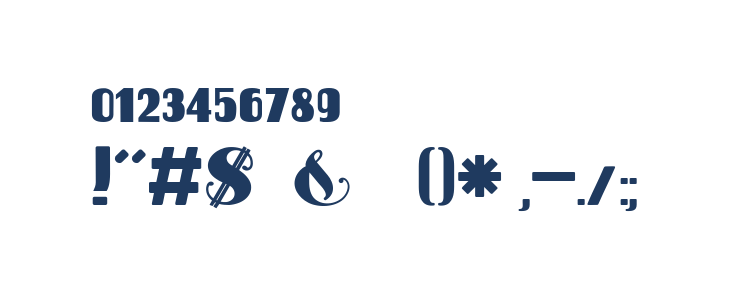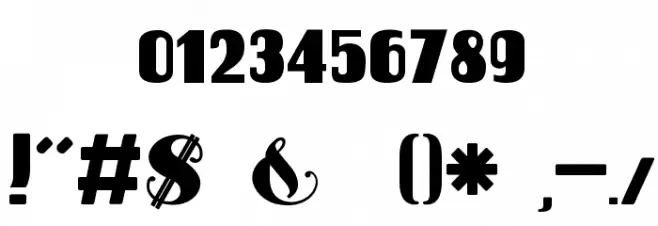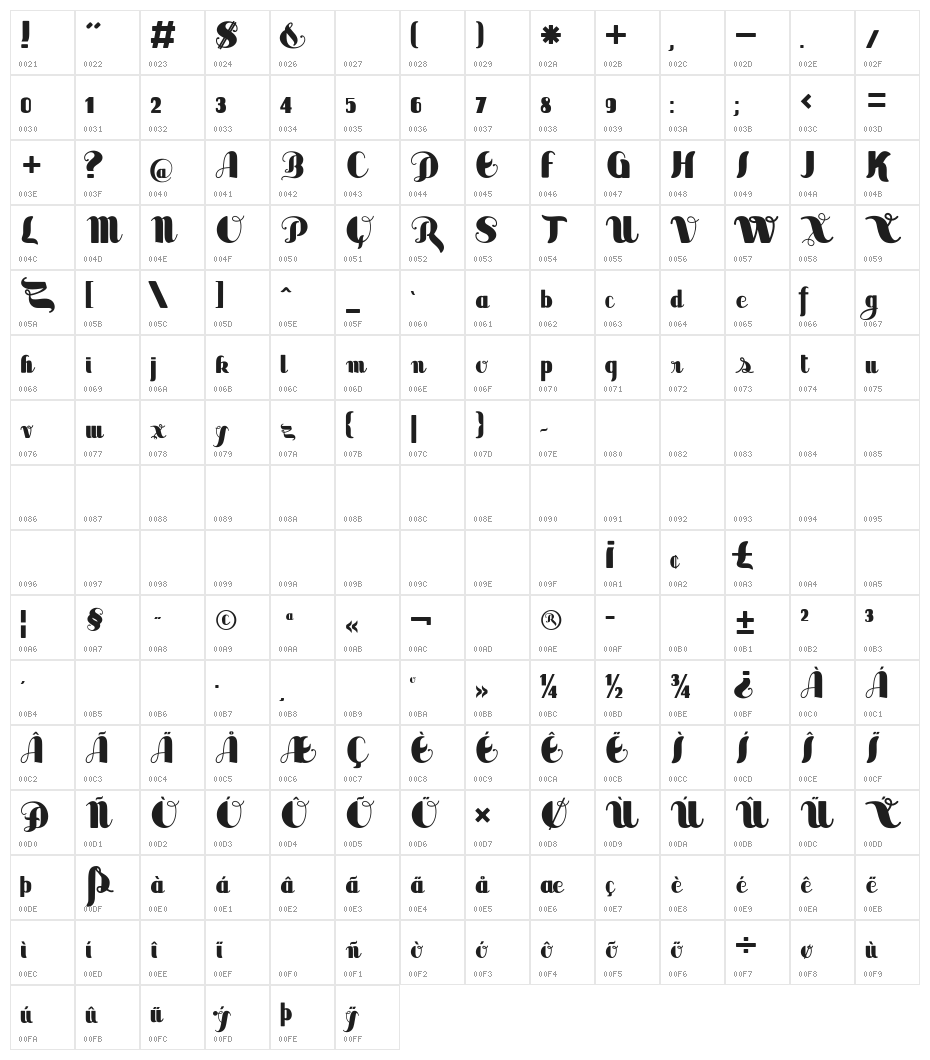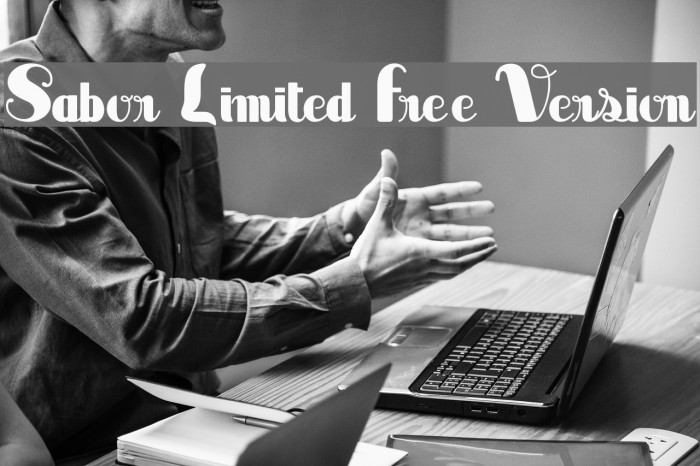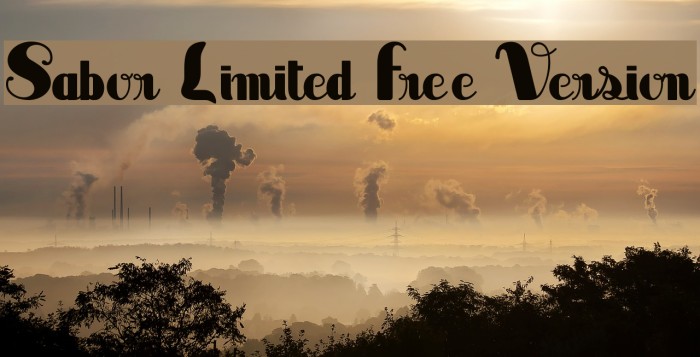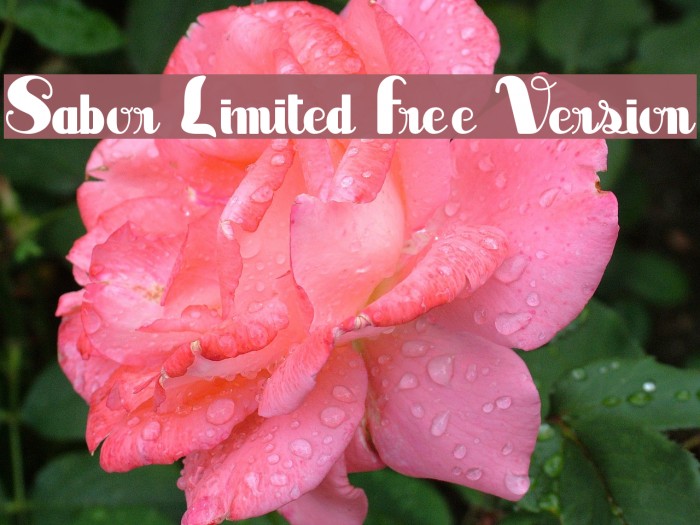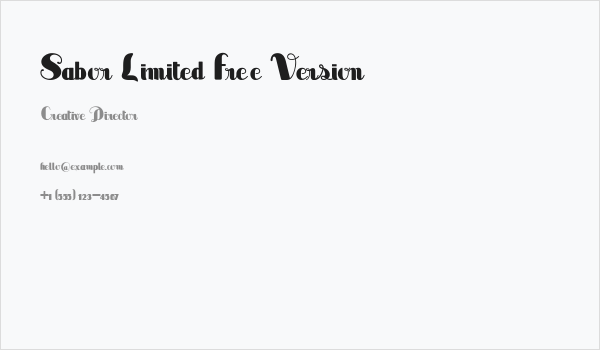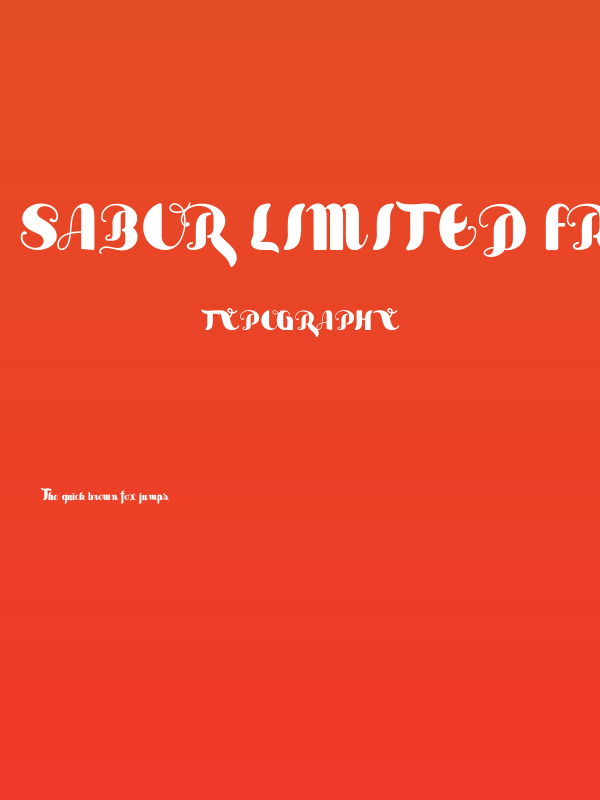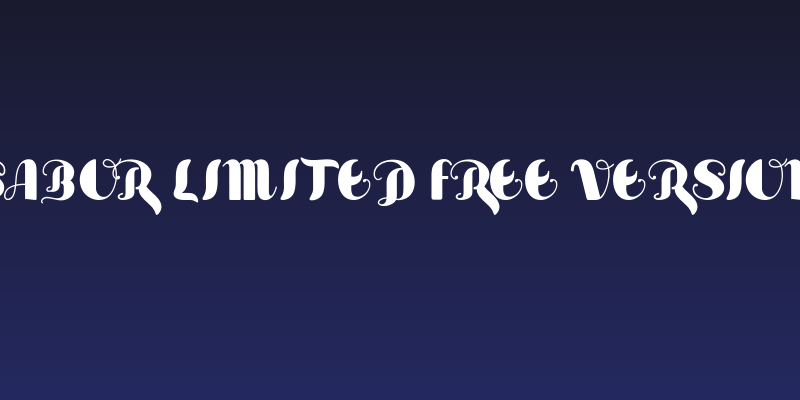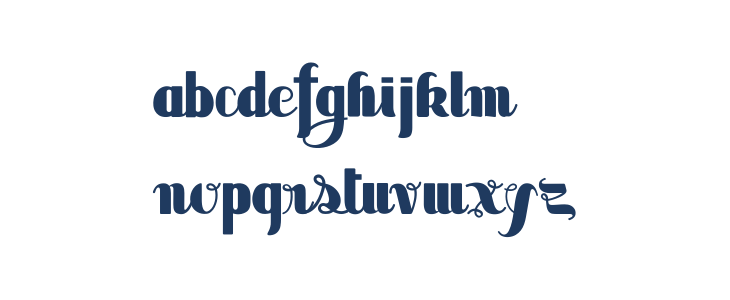
Sabor Limited Free Version Font
Sabor Limited Free Version Description
This font features a unique blend of decorative and bold elements, creating a striking visual impact. The uppercase letters are characterized by their thick, bold strokes and intricate flourishes, giving them a dramatic and artistic flair. The lowercase letters maintain a similar style, with some characters incorporating elegant swashes that enhance their decorative appeal. The numerals are bold and consistent, matching the overall weight of the alphabet. Special characters are designed with the same attention to detail, ensuring a cohesive look across all glyphs. This font's distinctive style makes it ideal for projects that require a touch of elegance and boldness.
| Proposed Projects | Ideal for branding, logo design, invitations, and decorative headlines. |